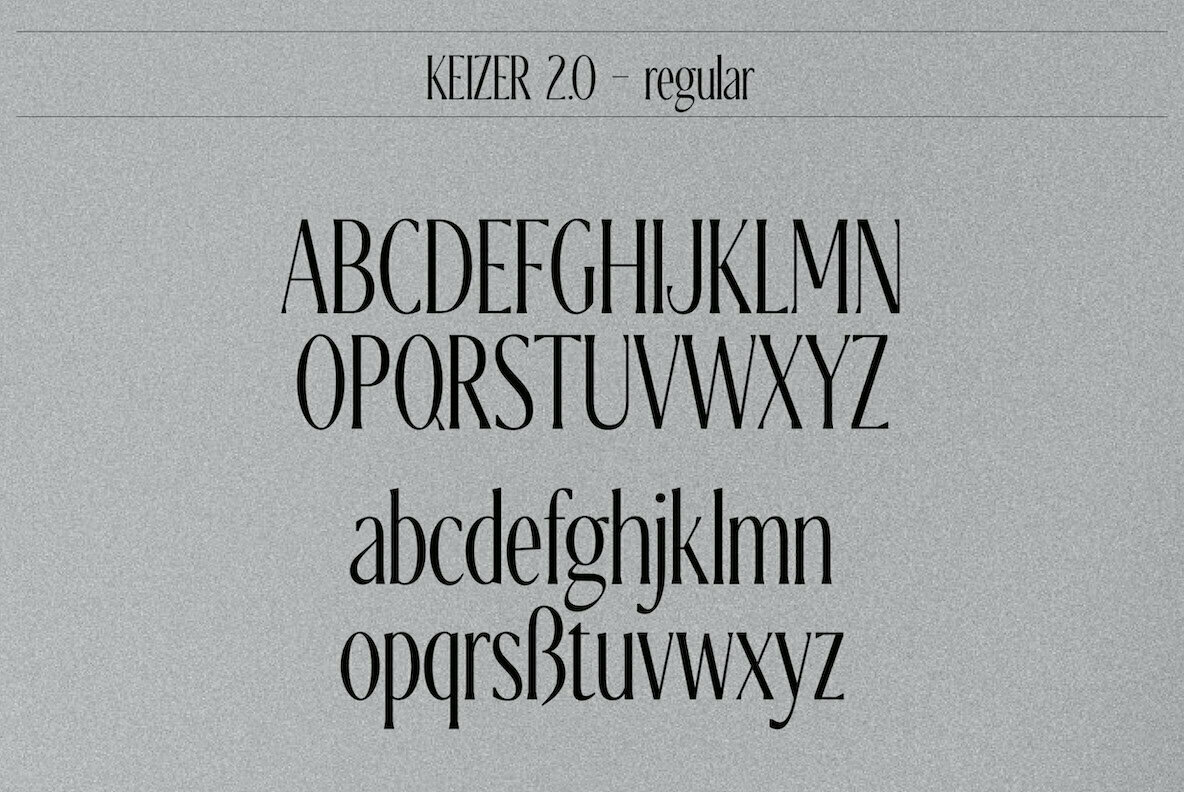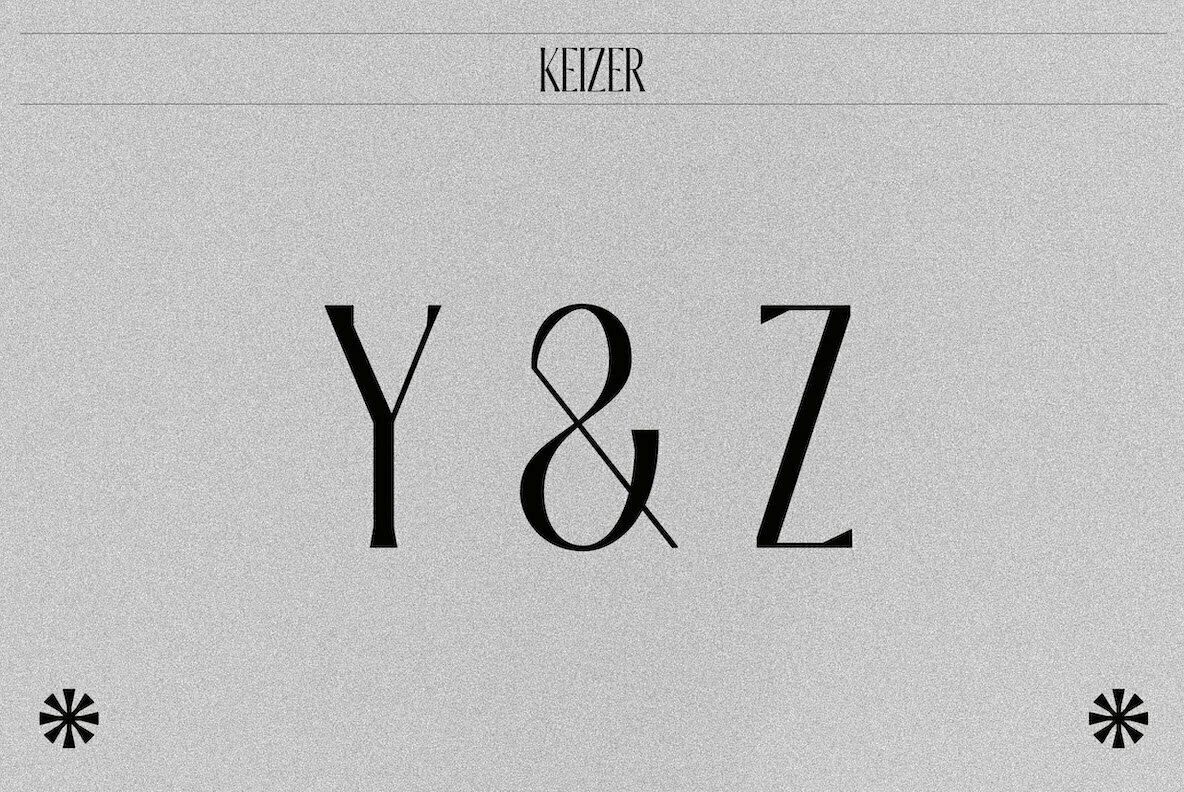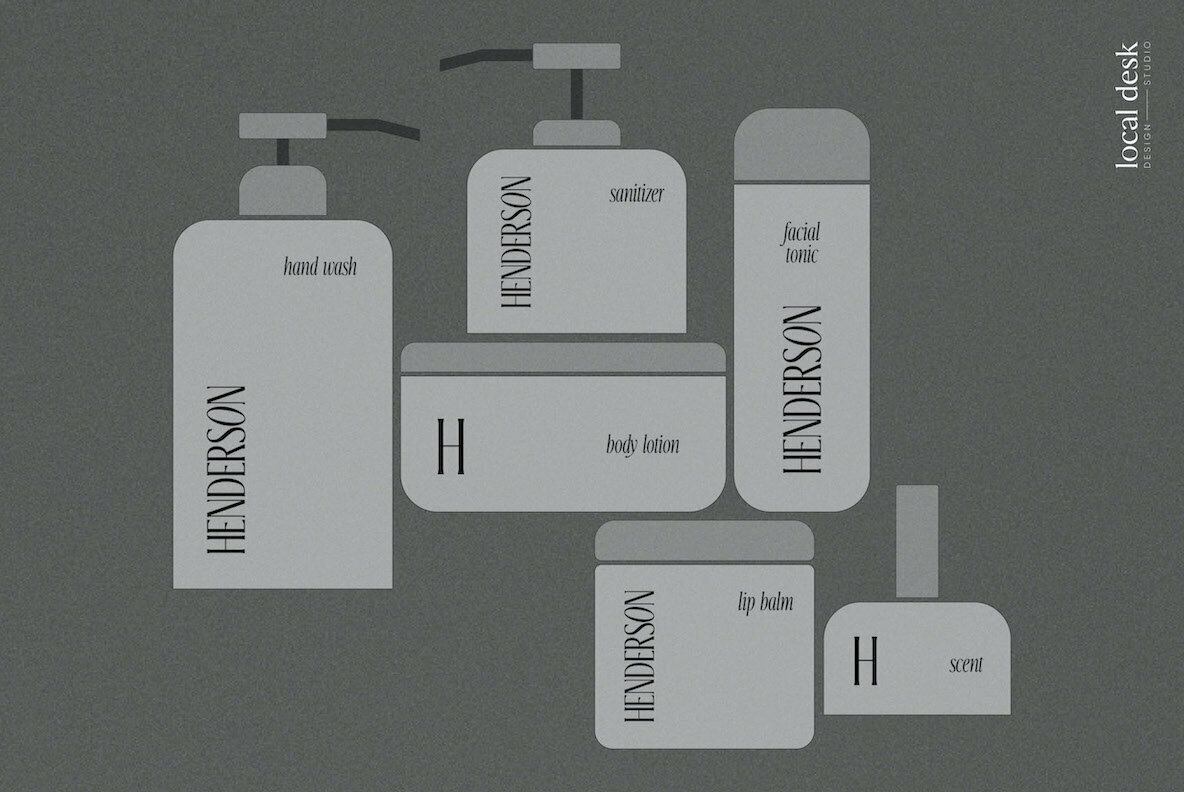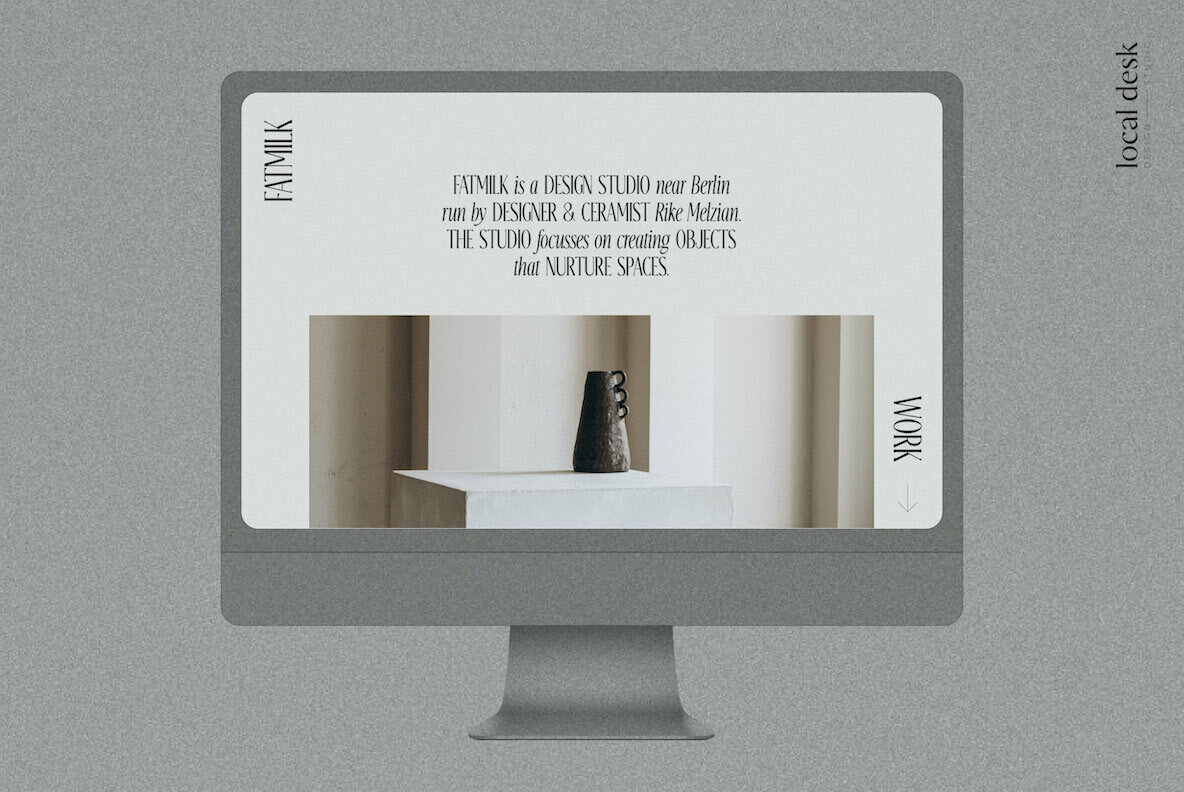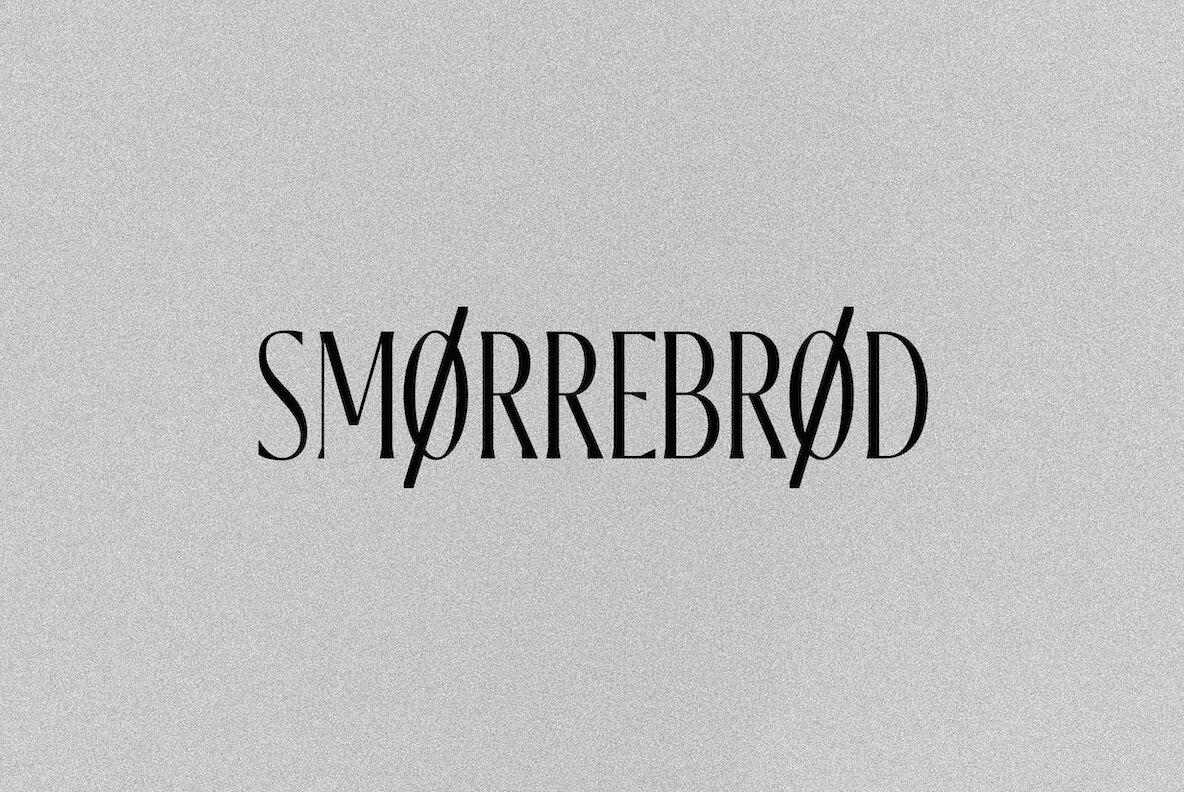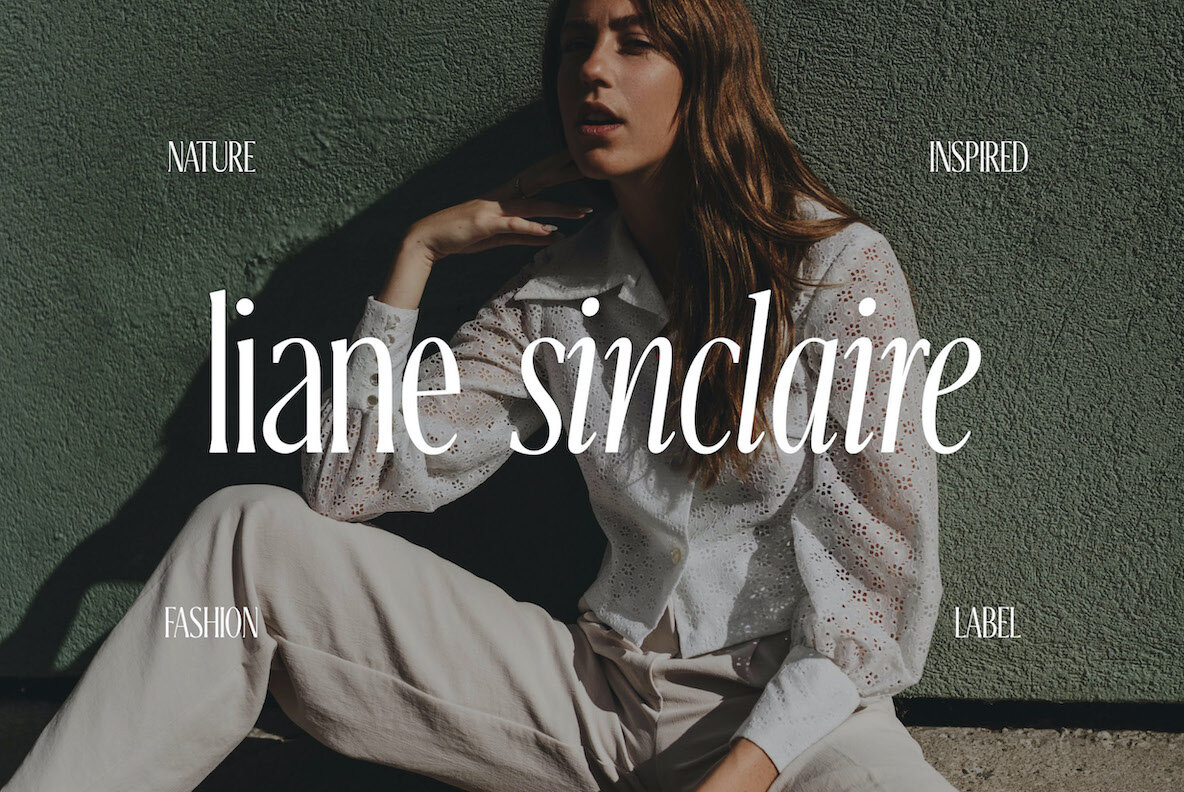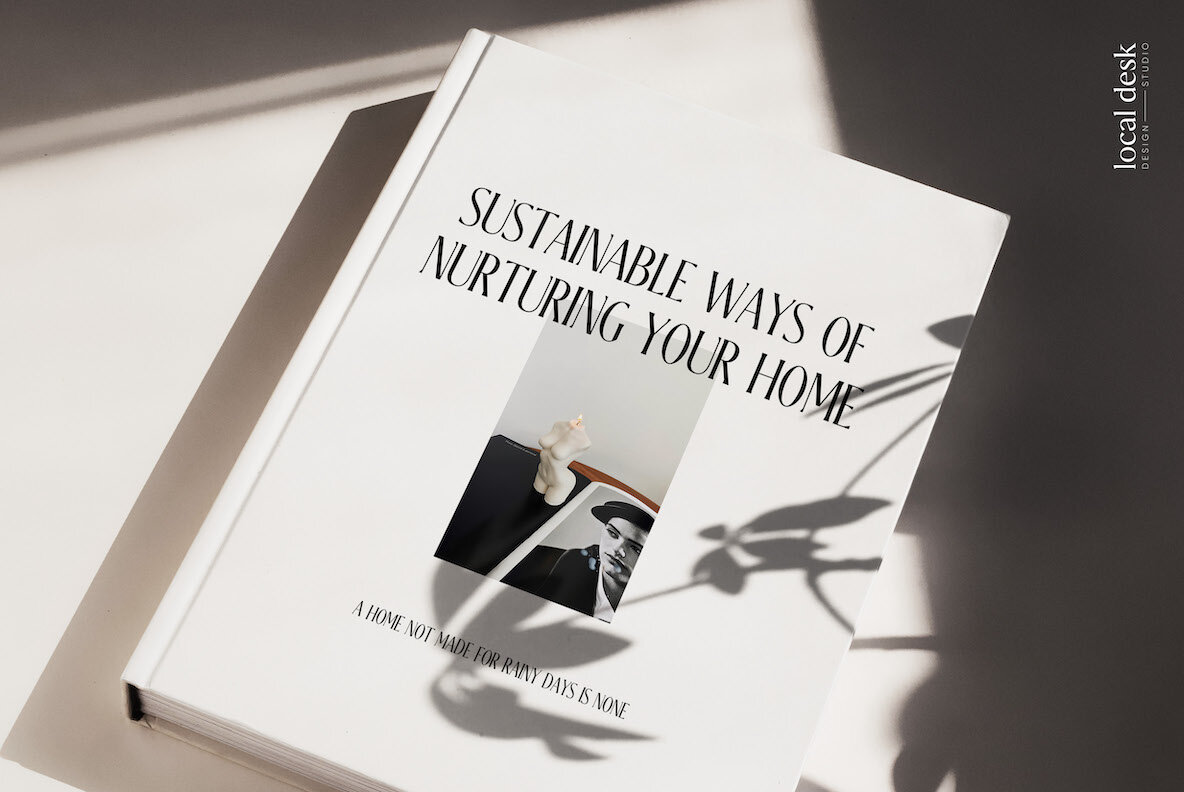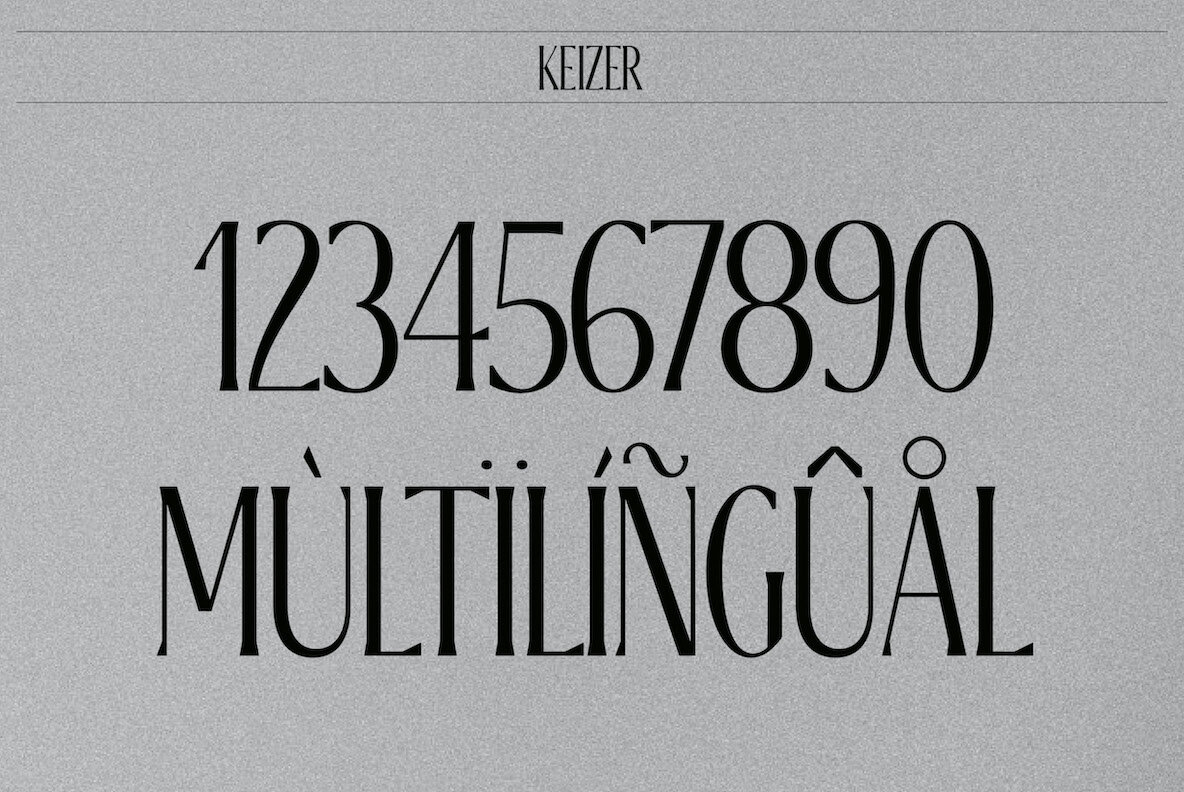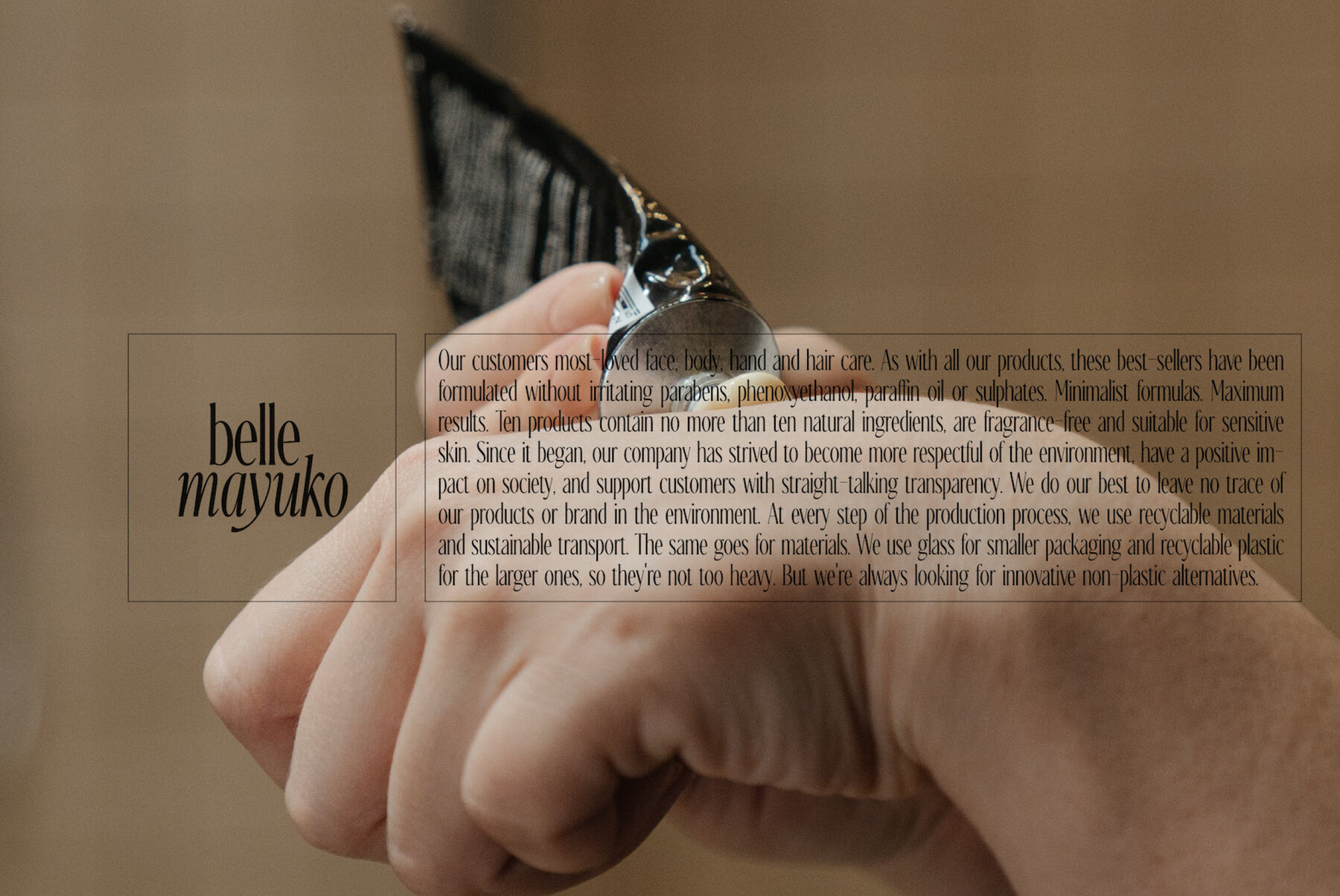
Keizer Font
Keizer is a distinctive, modern serif typeface with a refined vibe. Unique shapes and contrasting lines create a stylish font that is special & condensed. Keizer is perfectly suited for designing recognizable & modern brands, contemporary packaging, bold statements, websites and so much more!